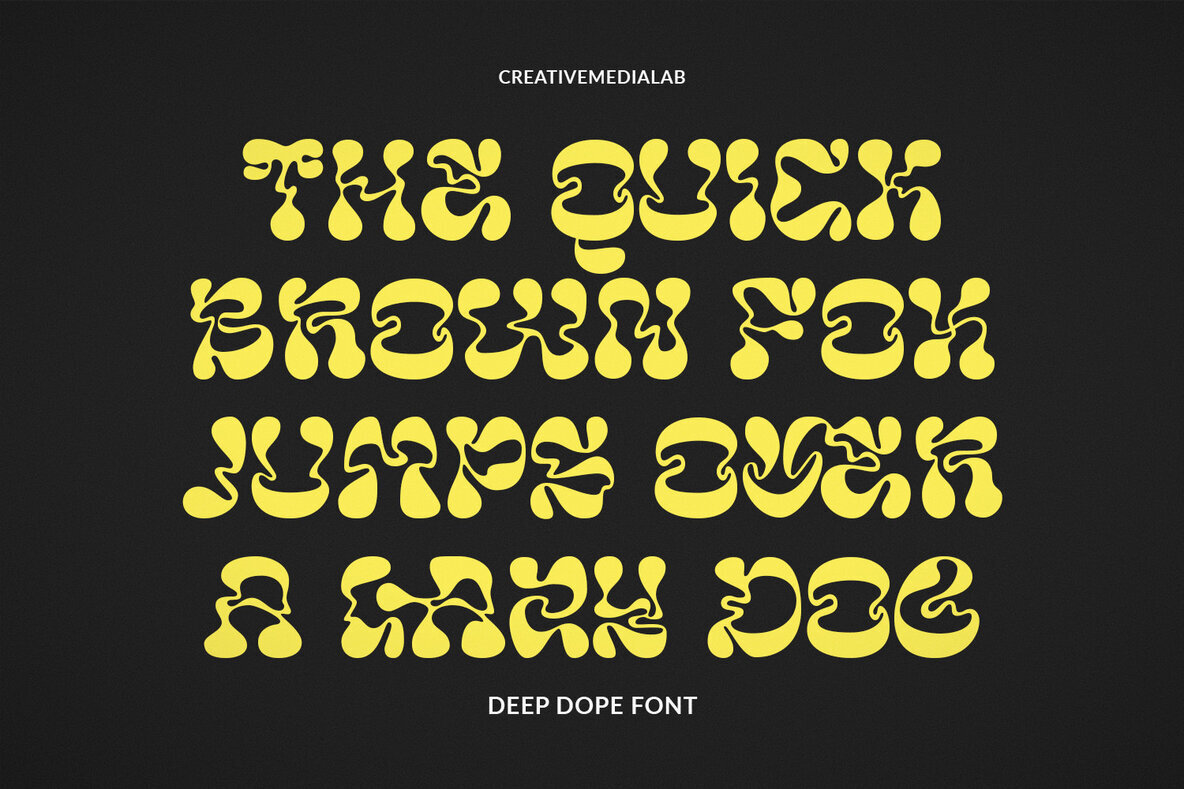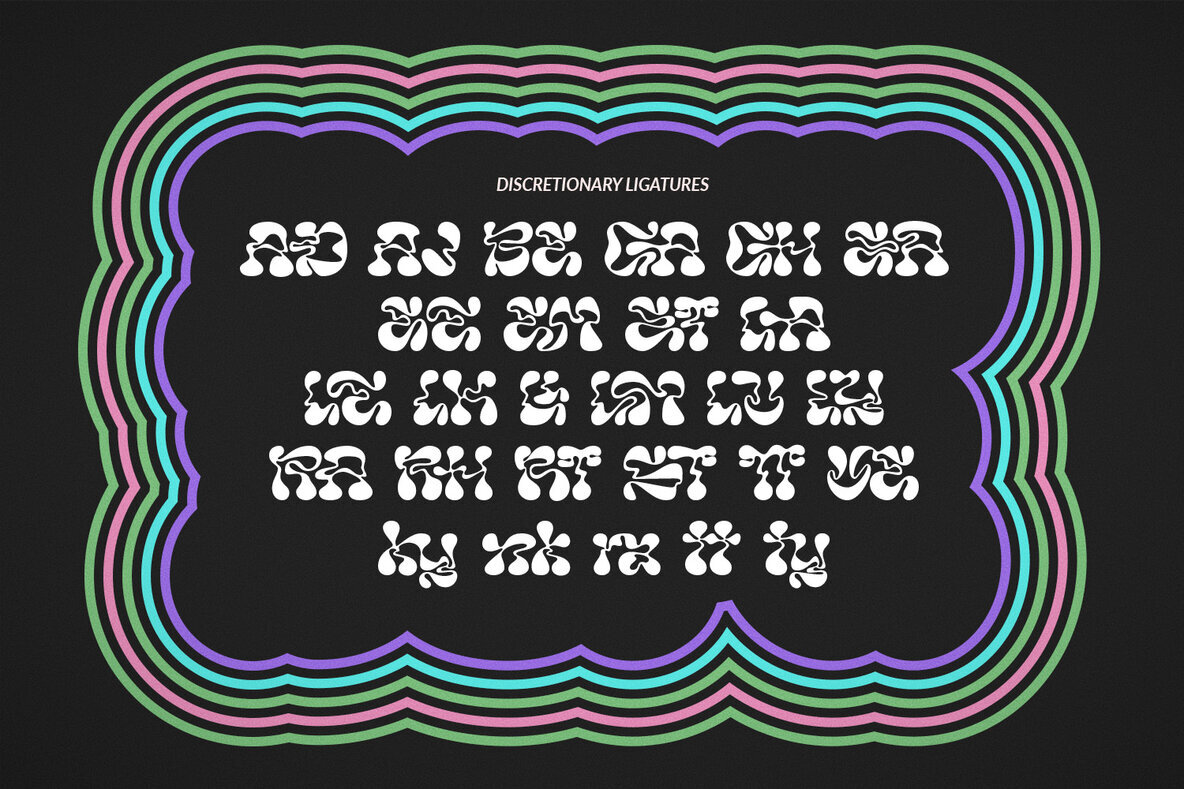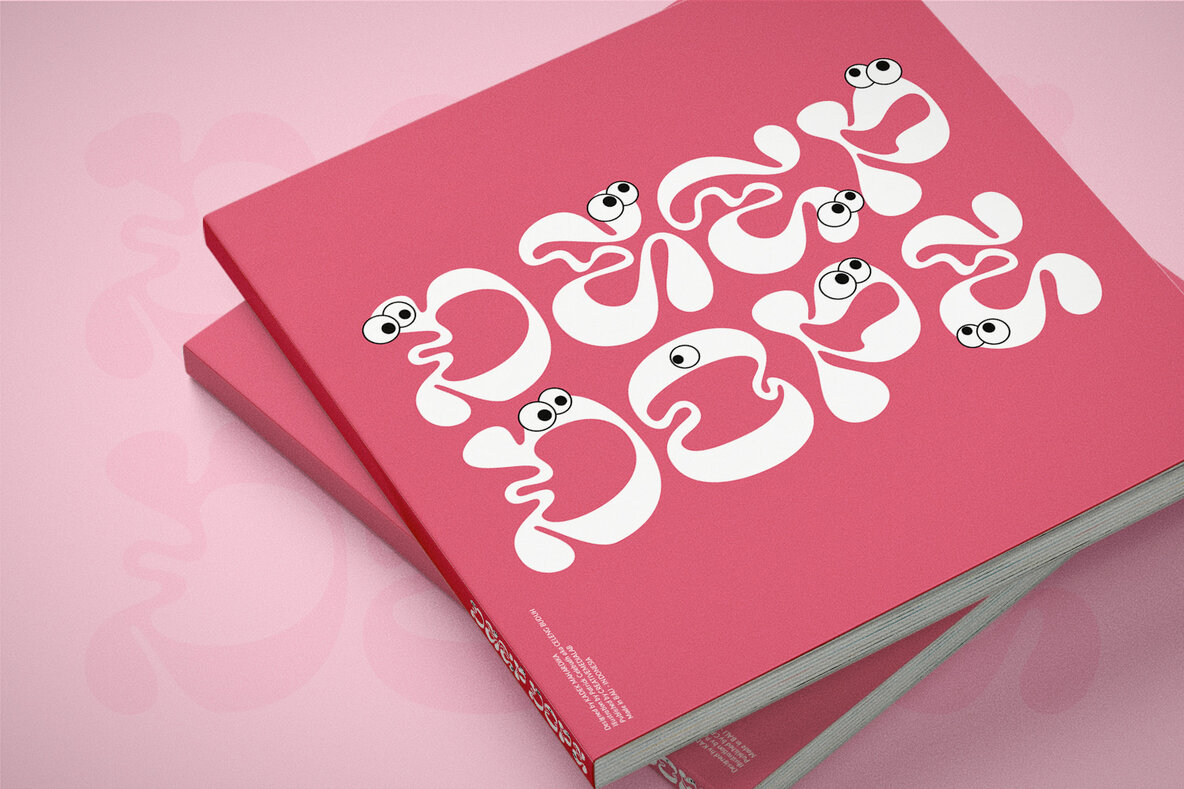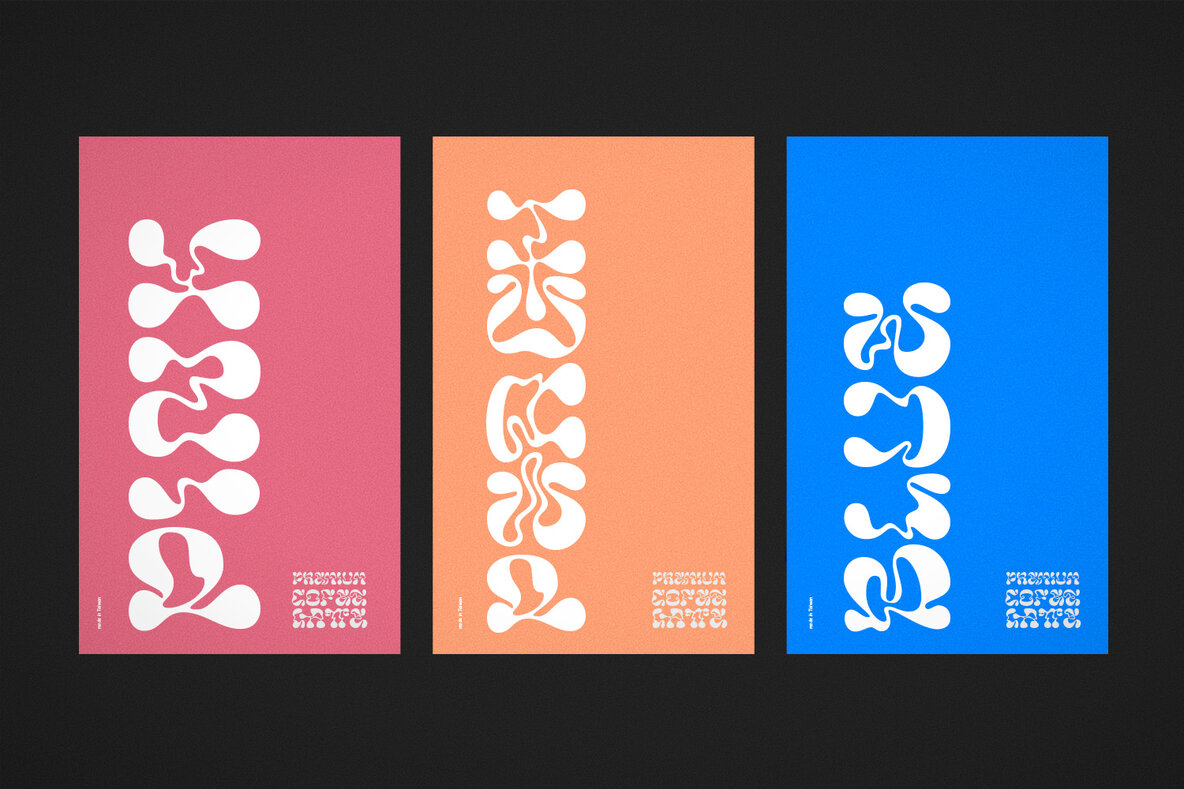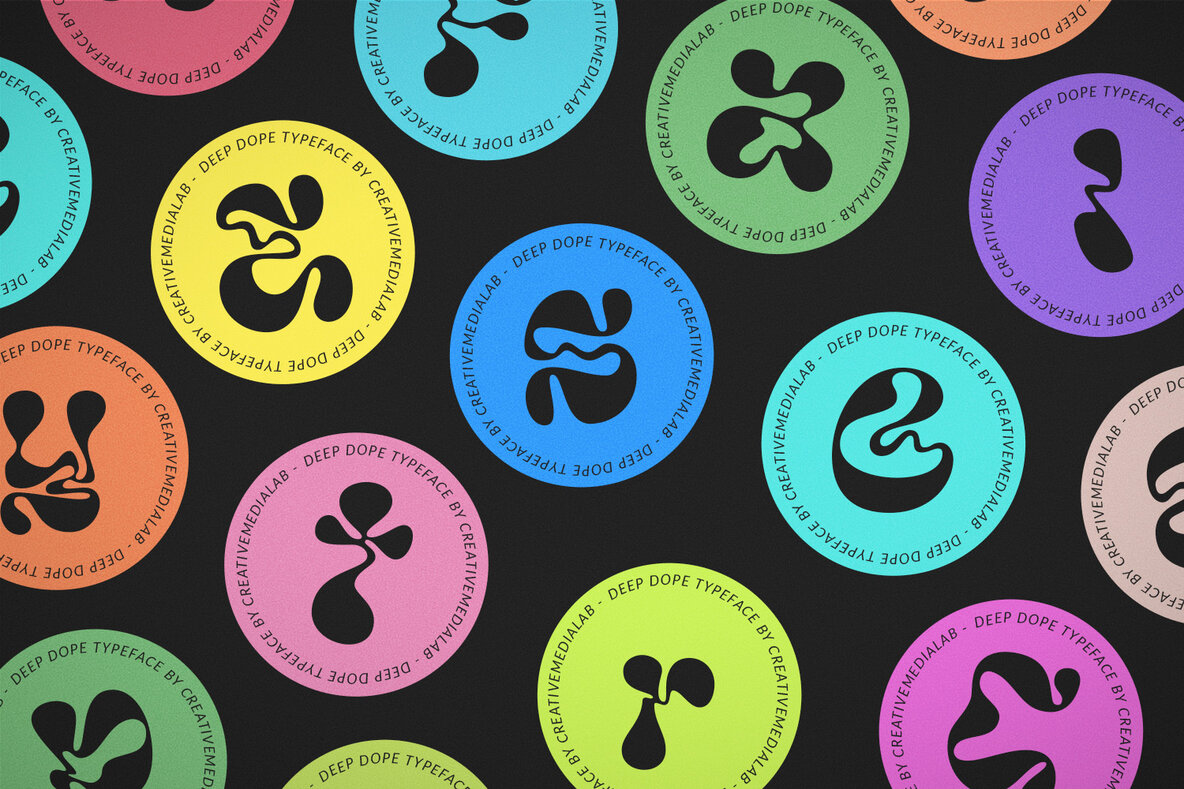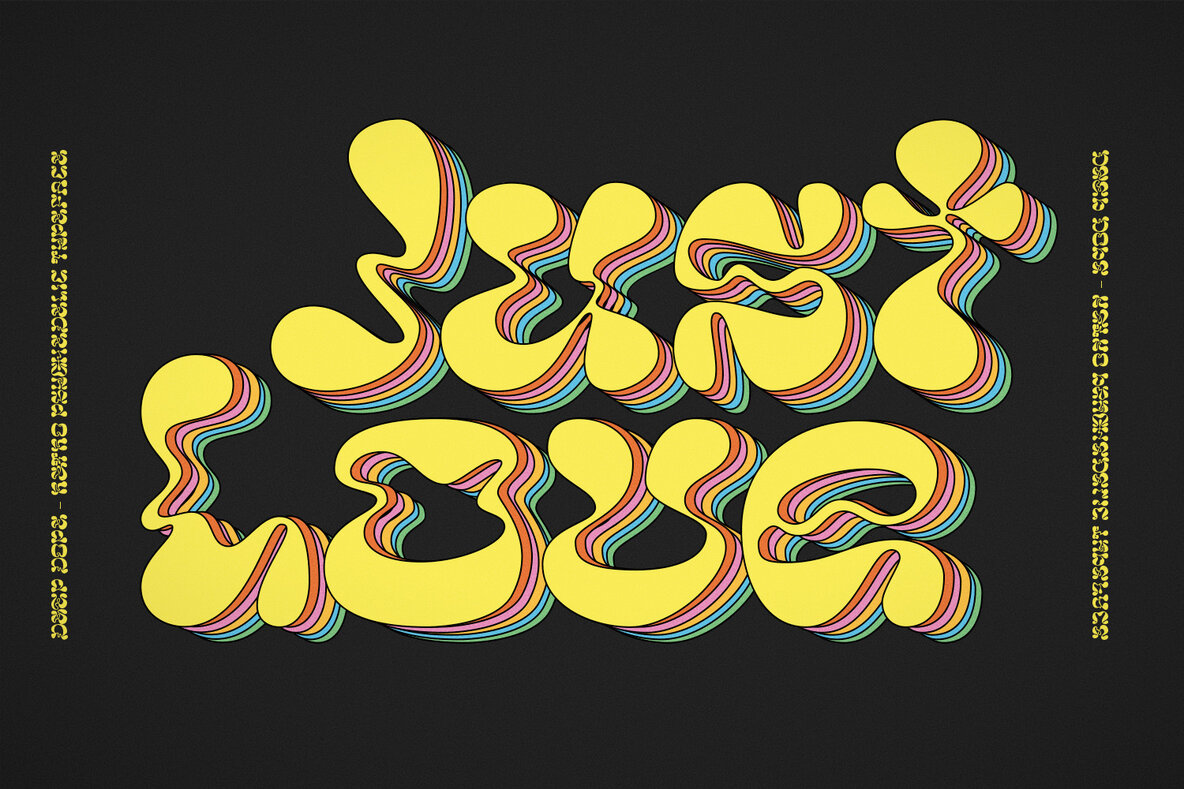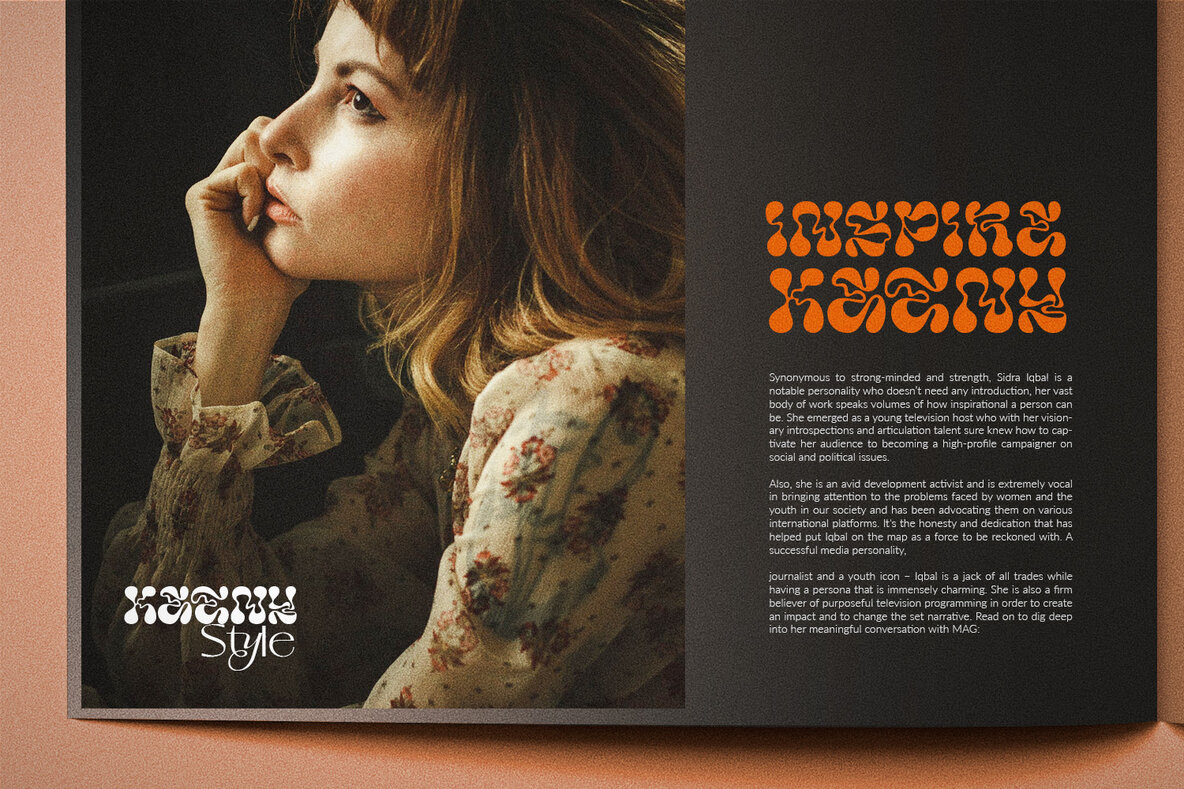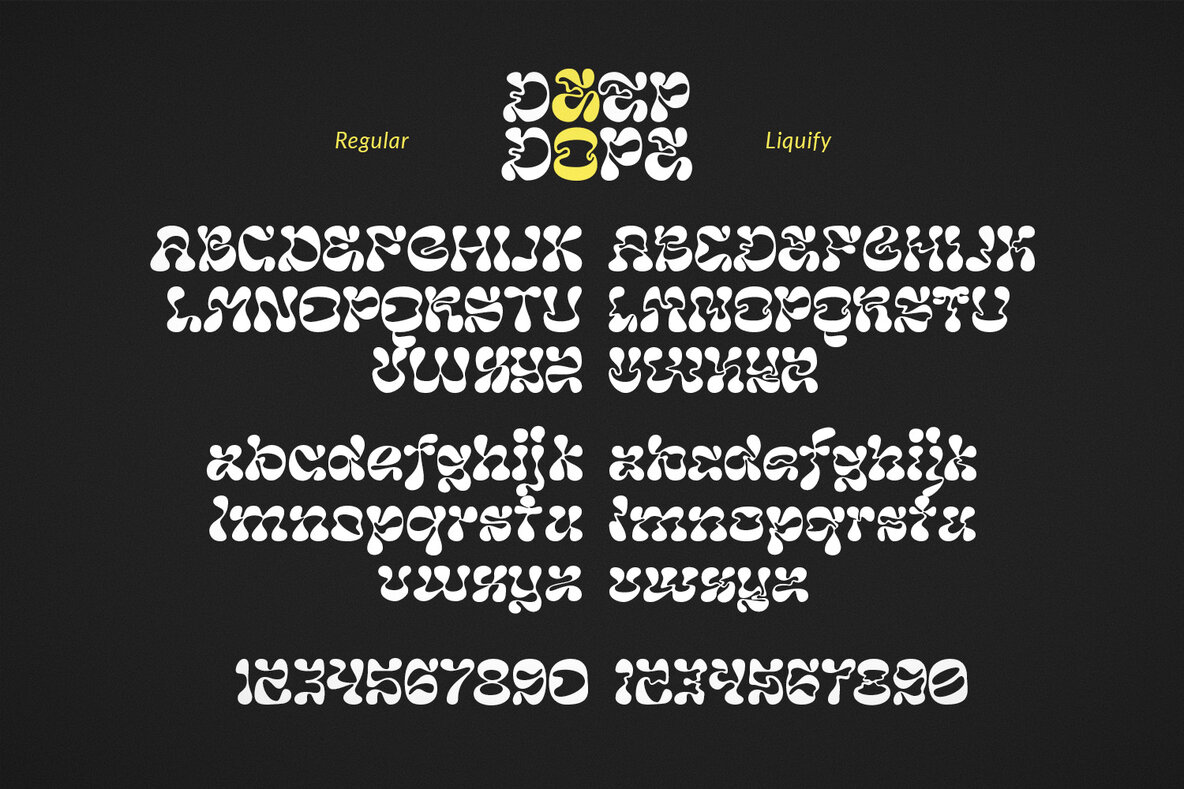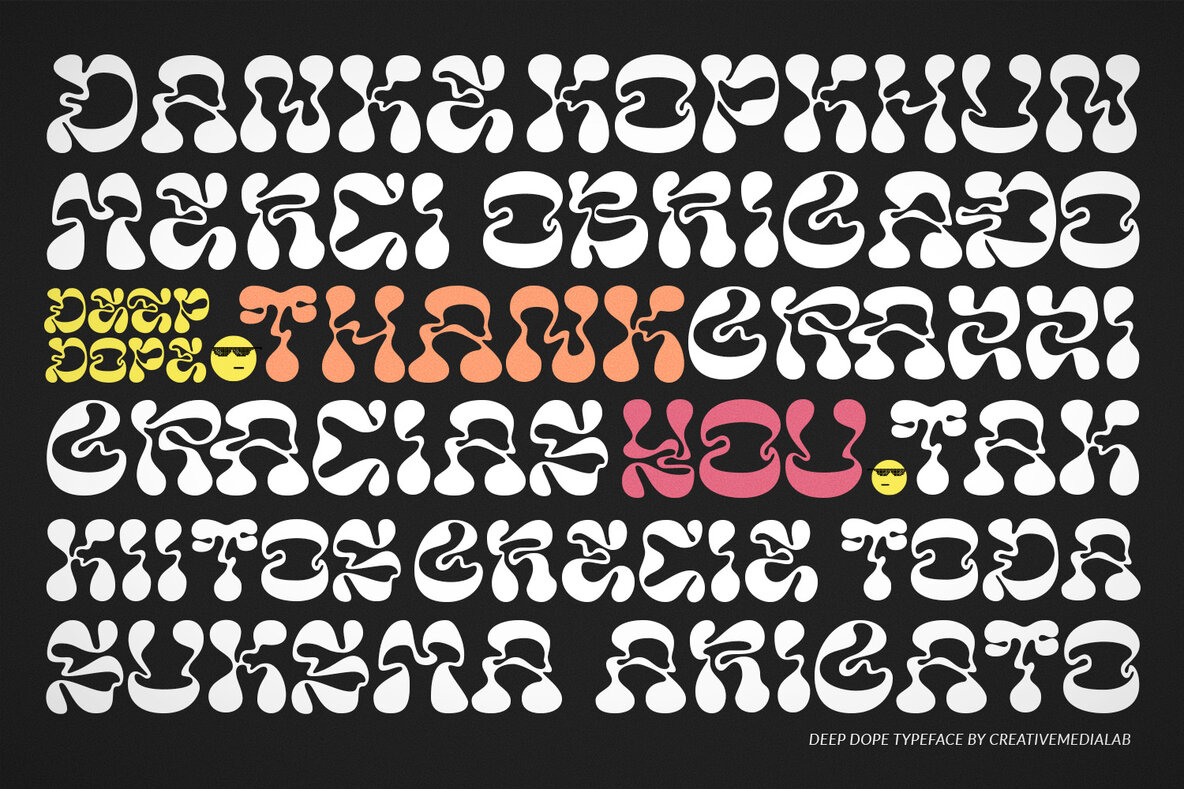
Deep Dope Typeface: Psychedelic Flair for Modern Design
Drawing from a mesmerizing blend of abstract and psychedelic inspiration, Deep Dope brings a unique energy to any project. This distinctive typeface by Creativemedialab is available in two dynamic styles: Regular and Liquify, lending itself effortlessly to vibrant design concepts. Whether you're working on a summer-themed project, branding identity, or logo development, Deep Dope provides an engaging and modern twist.
• Two Styles – Choose between Regular and Liquify for diverse design applications.
• Versatile Use – Ideal for summer themes, branding, and logos.
• Abstract Design – Psychedelic inspirations for a distinct look.